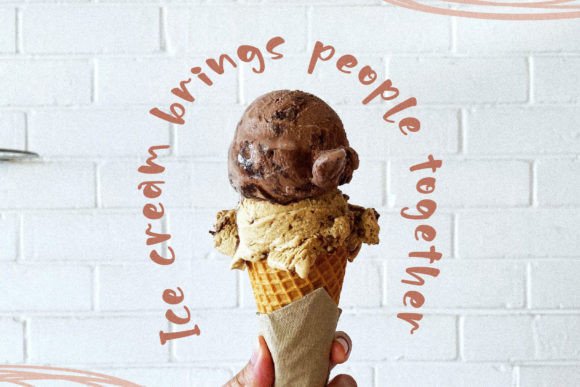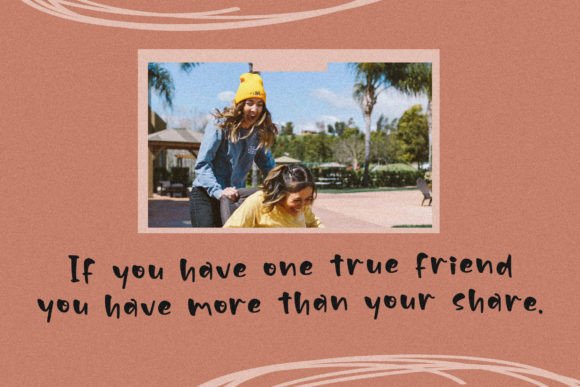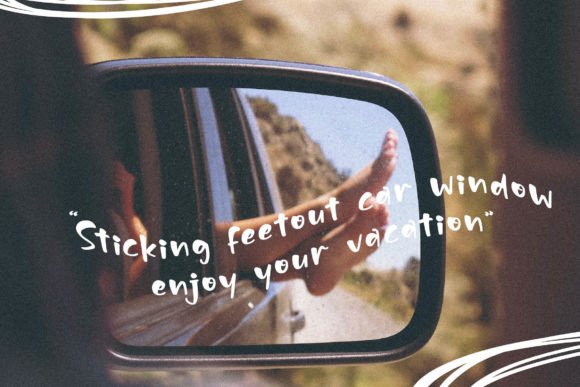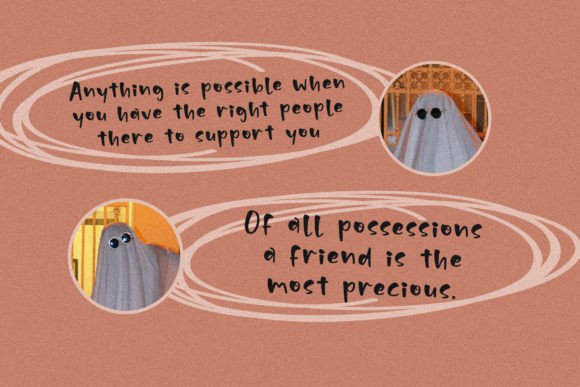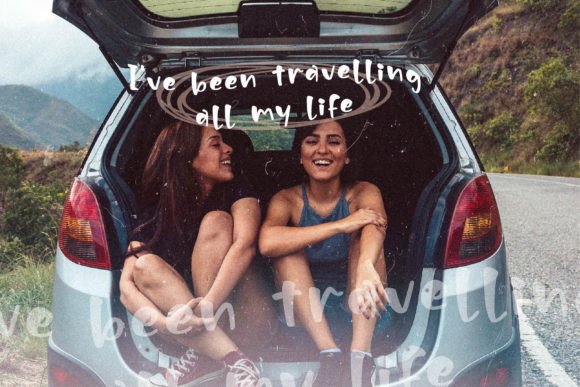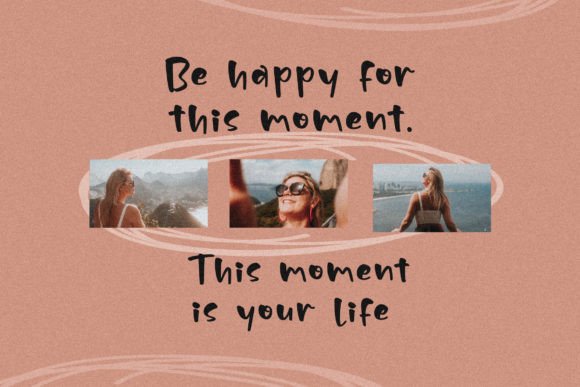
Introduction to Moka Font
Moka – Fun Handwritten Font suitable for any projects such as logos, branding projects, homeware designs, product packaging, mugs, quotes, posters, shopping bags, t-shirts, book covers, name cards, invitation cards, greeting cards, labels, photography, watermark, special events, and all your other lovely projects that need a beautiful script taste.
Key Features of Moka Font
Why Choose Moka Font?
Moka Font offers exceptional quality and versatility, making it a valuable addition to your design toolkit. Whether you’re creating for personal projects or commercial use, Moka Font delivers professional results.